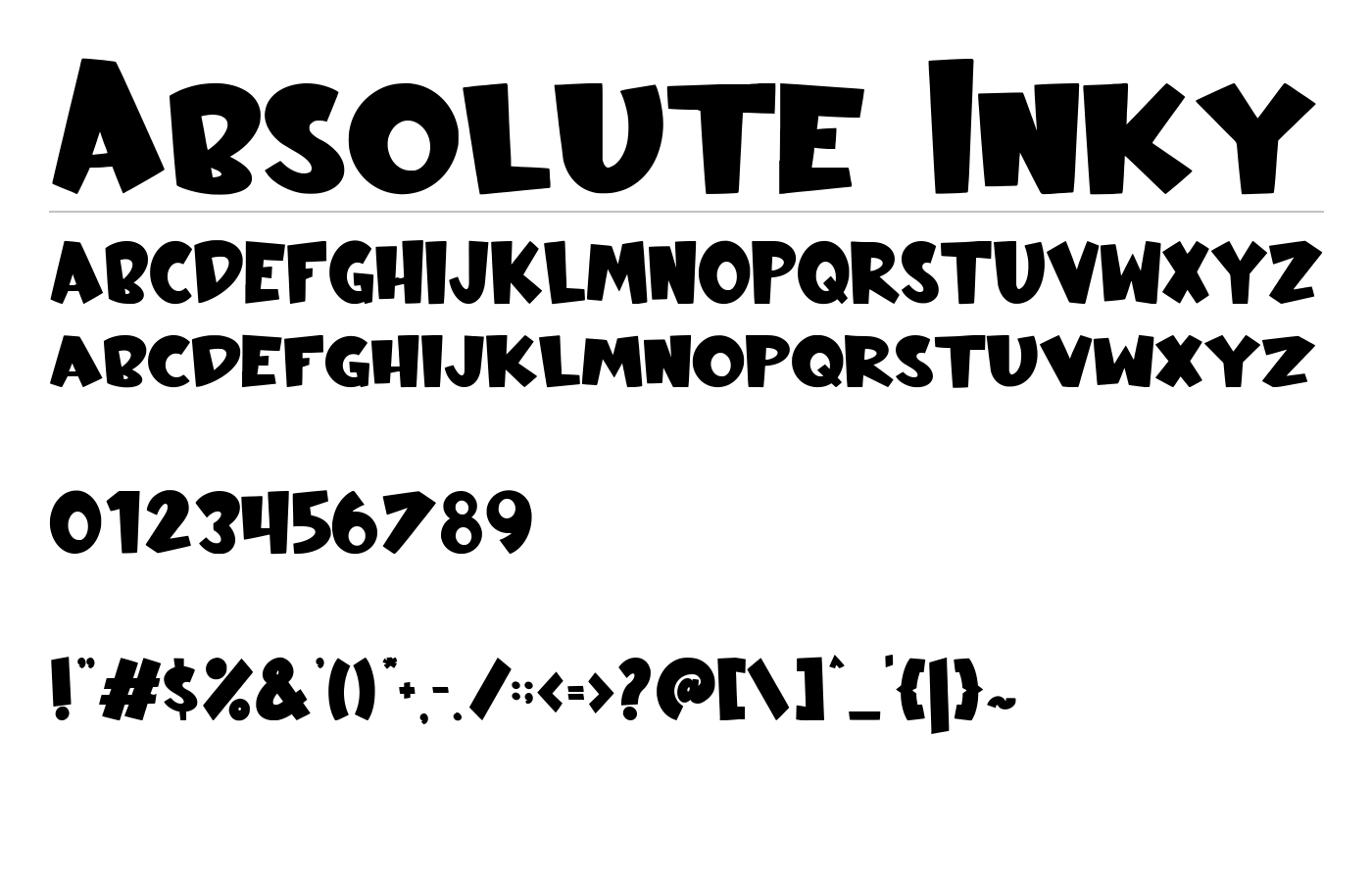
Absolute Inky is a bold, playful sans serif font with a chunky, irregular design that brings a fun and informal vibe. Its thick strokes and quirky letter shapes make it ideal for eye-catching headlines, posters, and children’s projects, where a lively and approachable personality is needed. This font works best in creative branding and display contexts that want to communicate energy and friendliness.
Absolute Inky Font
About Absolute Inky Font